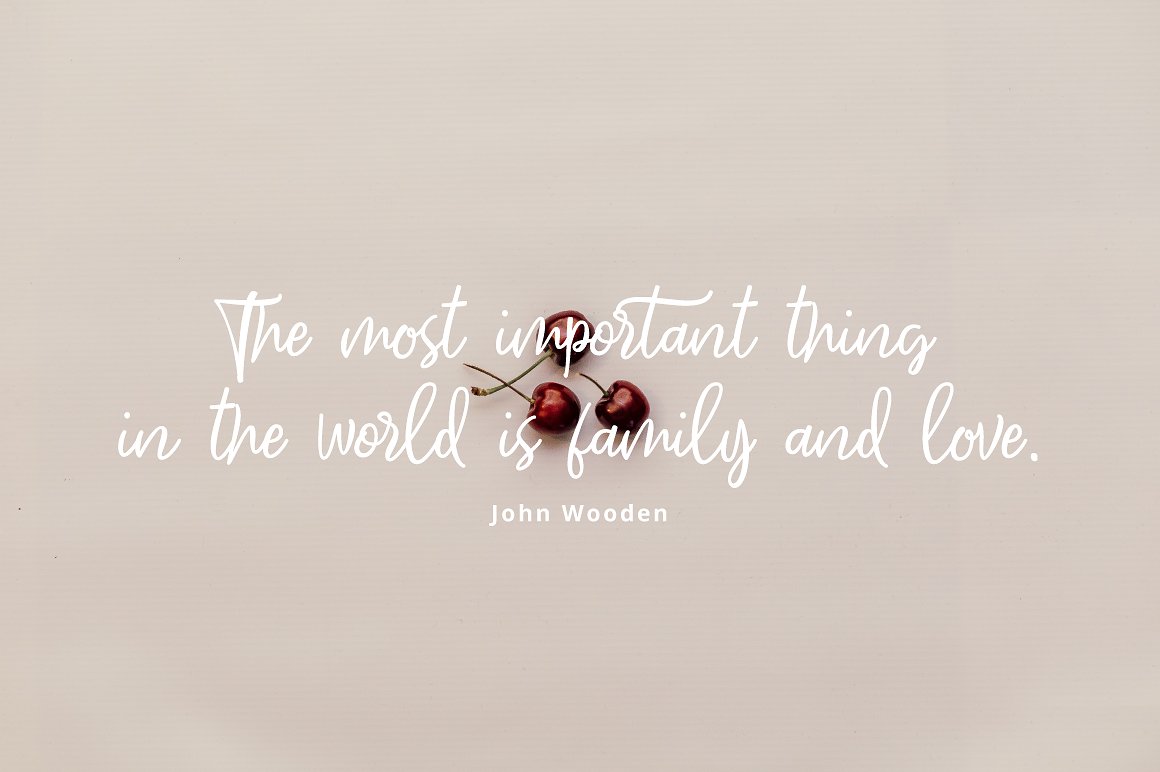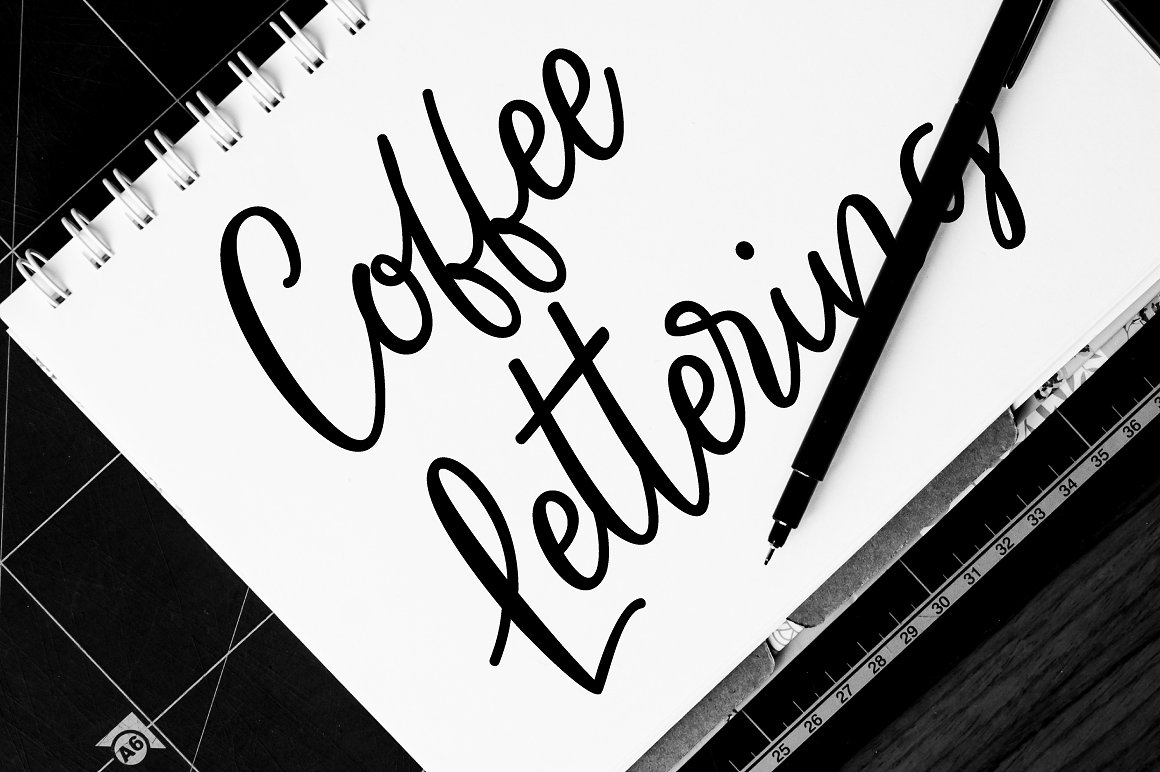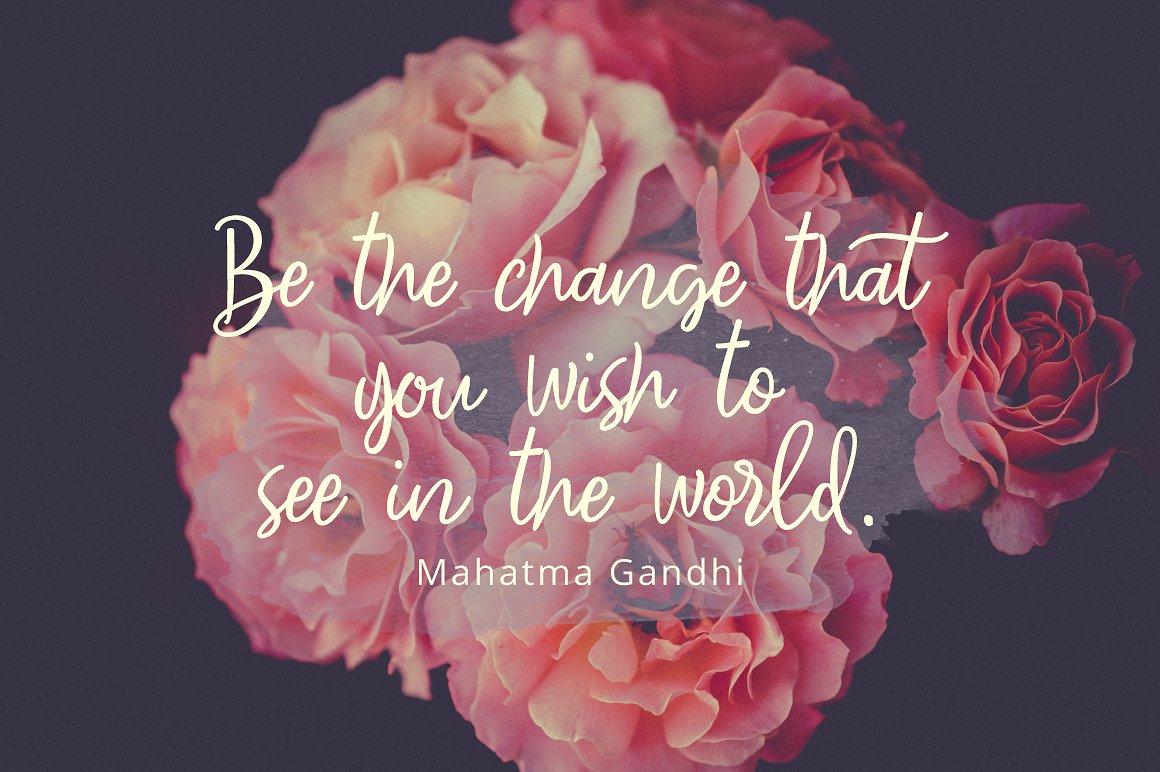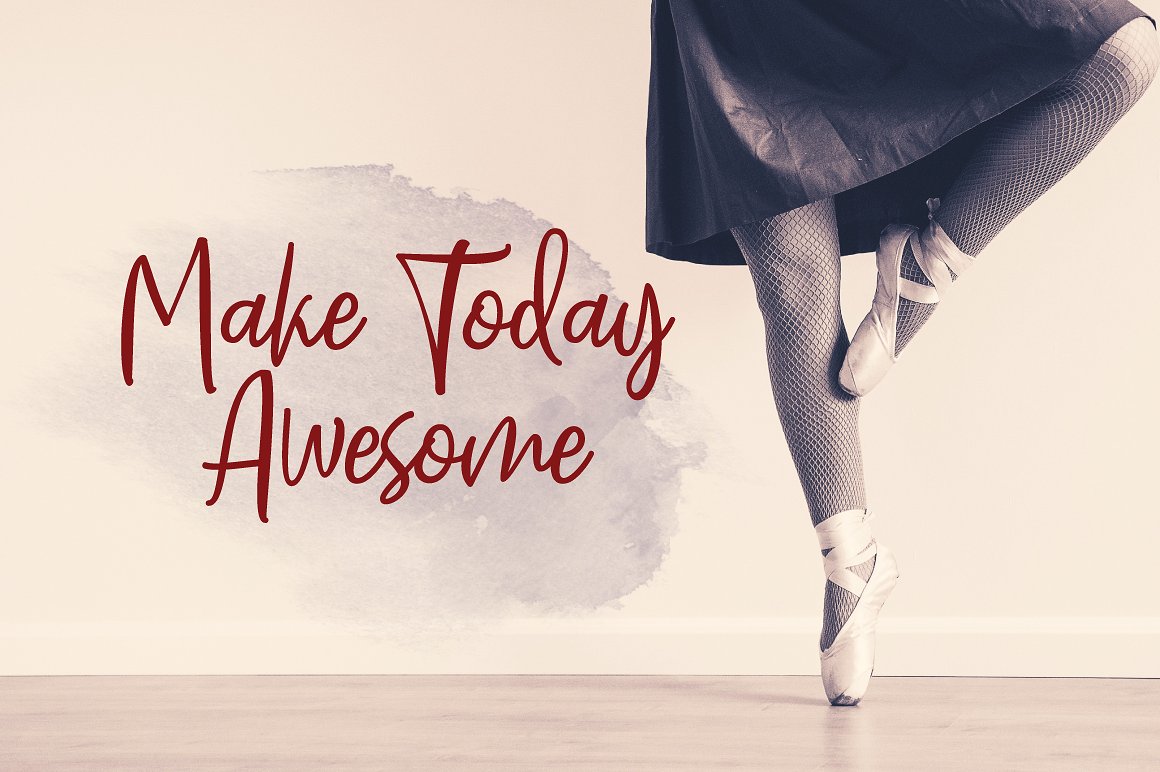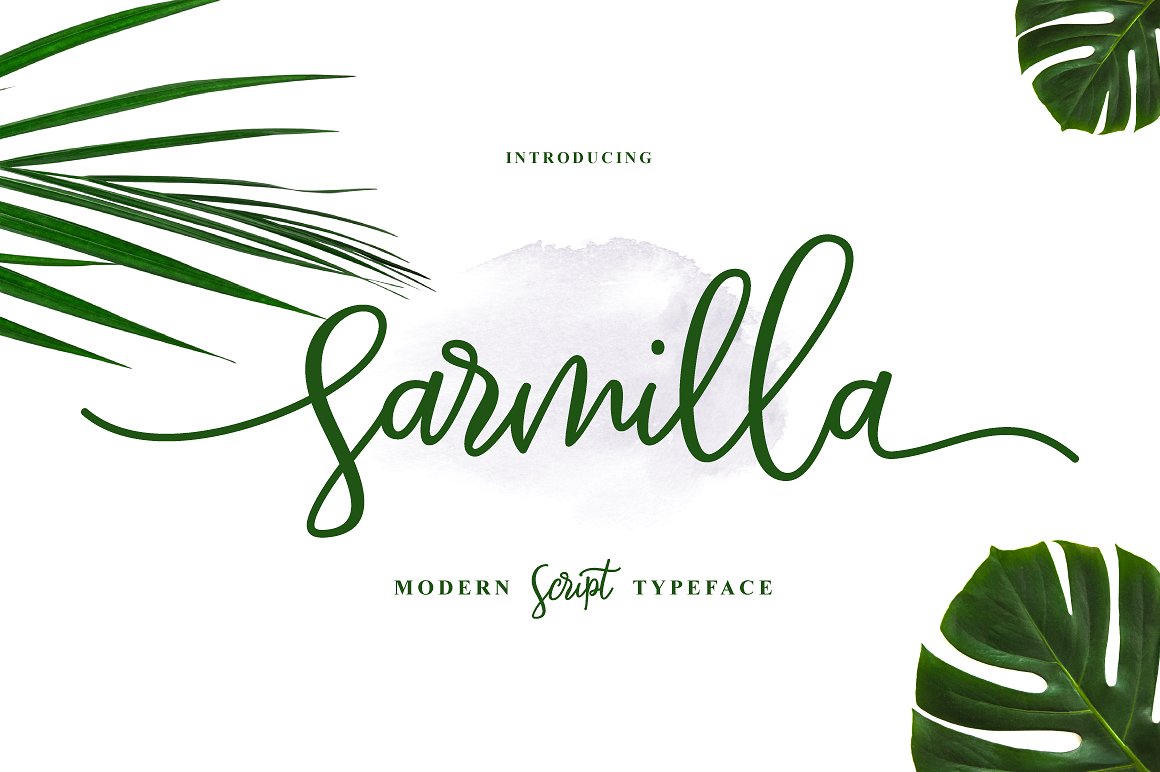
Sarmilla Script Font
Sarmilla Font is Handmade modern Script typefaces. It’s hand look style makes it perfect for use in all your design projects. This font comes to give a natural feel for the designer in working on various projects, So Perfect and beautiful on invitation like greeting cards, branding materials, business cards, quotes, posters, Logos, Greeting Cards, Wedding Stationery, and more!